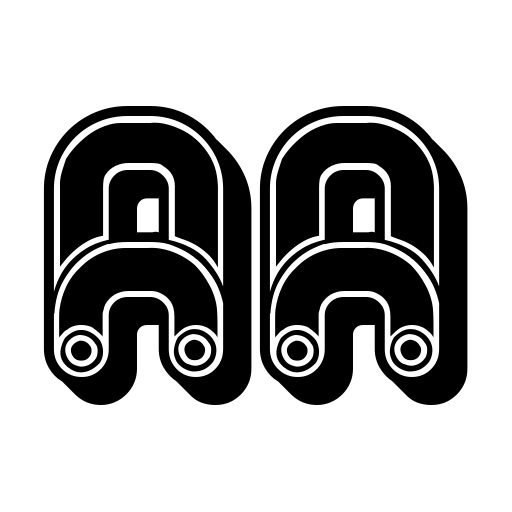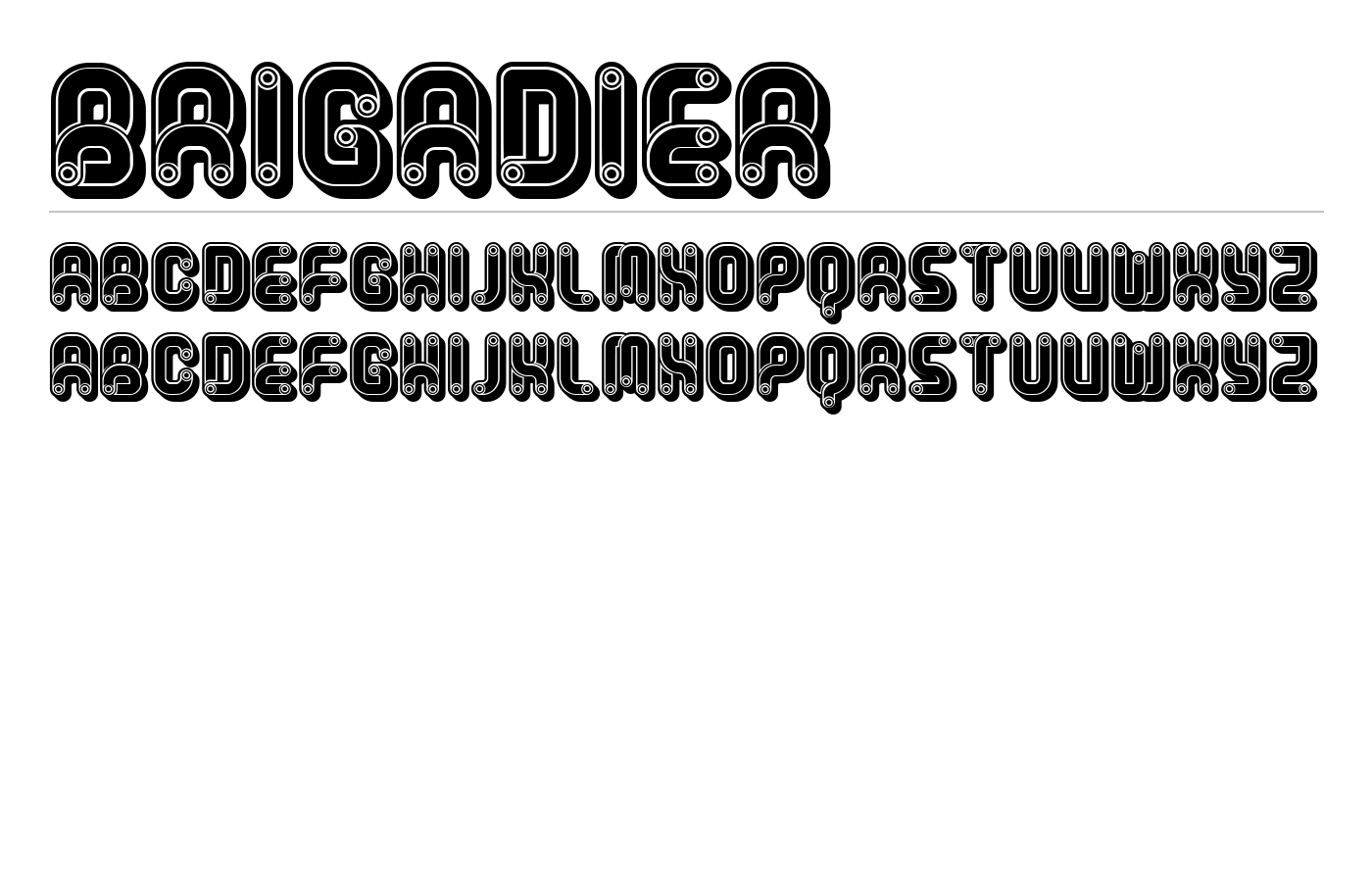
Brigadier is a bold, decorative display font with a playful and retro-futuristic vibe, featuring thick, rounded letterforms layered with intricate line patterns and circular accents. Its unique geometric style and heavy weight make it stand out best in eye-catching headlines, logos, and creative branding projects where a fun, vintage-inspired look is desired. This font works well for designs seeking to add personality and visual interest without sacrificing readability.
Brigadier Font
About Brigadier Font